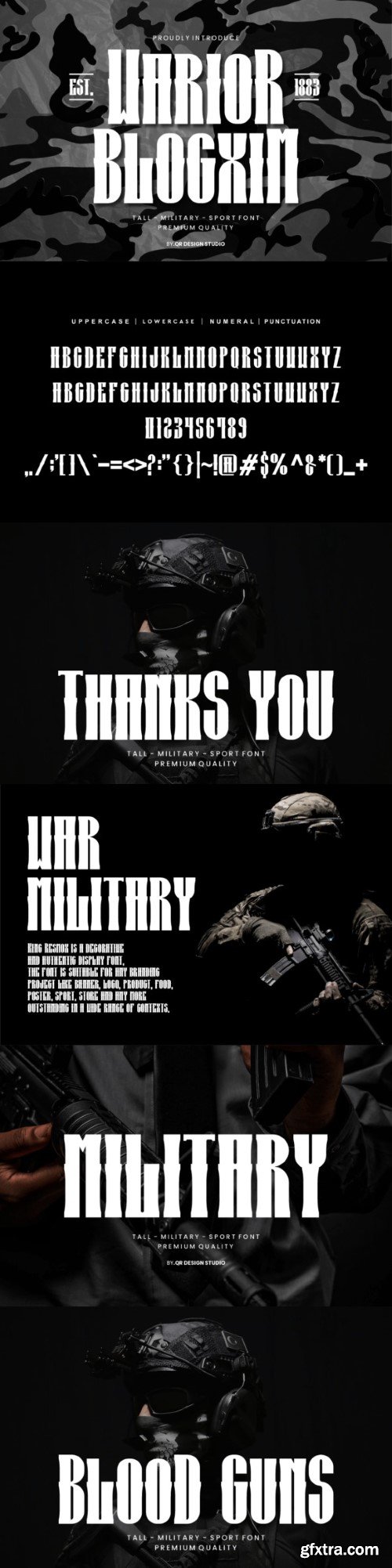
战士博客xim 字体
Warior Blogxim Font
Warior Blogxim is a bold and distinctive display font that commands attention with its unique style. Its sharp edges and unconventional letterforms give it a futuristic and edgy look, making it ideal for modern designs, posters, headlines, and branding projects that require a strong and memorable visual impact.